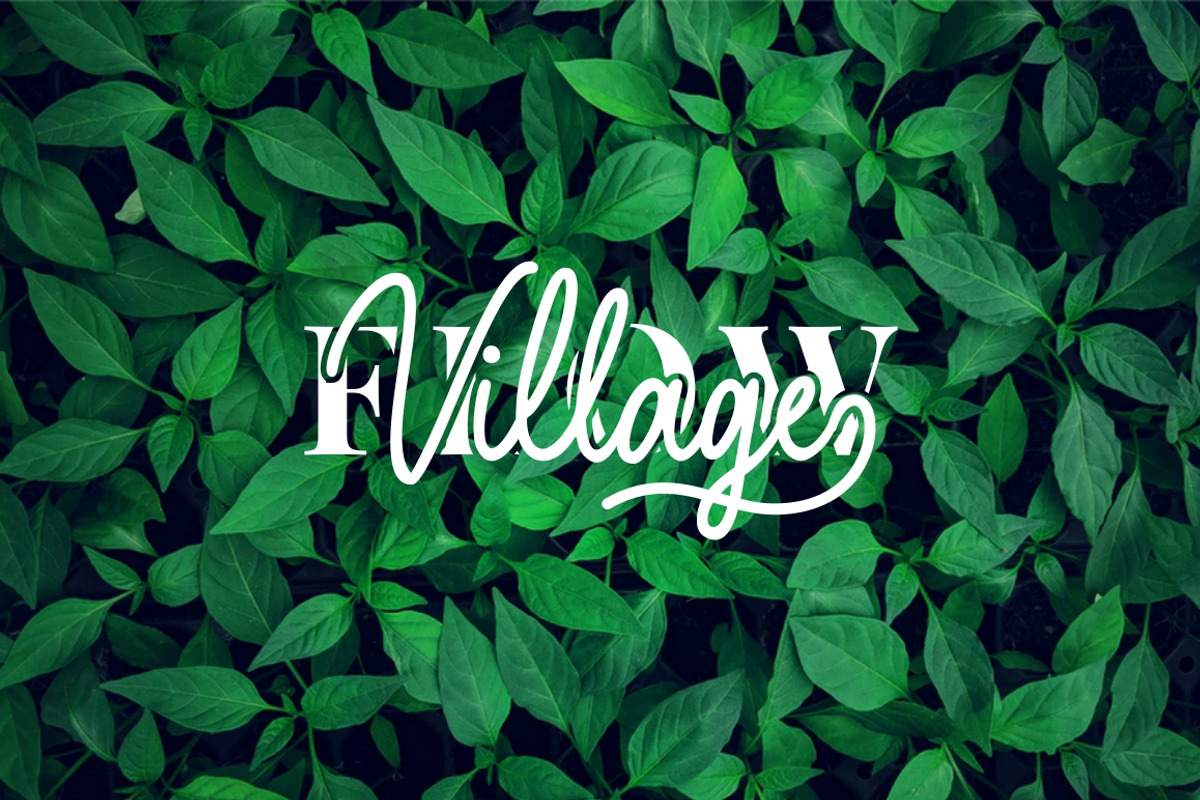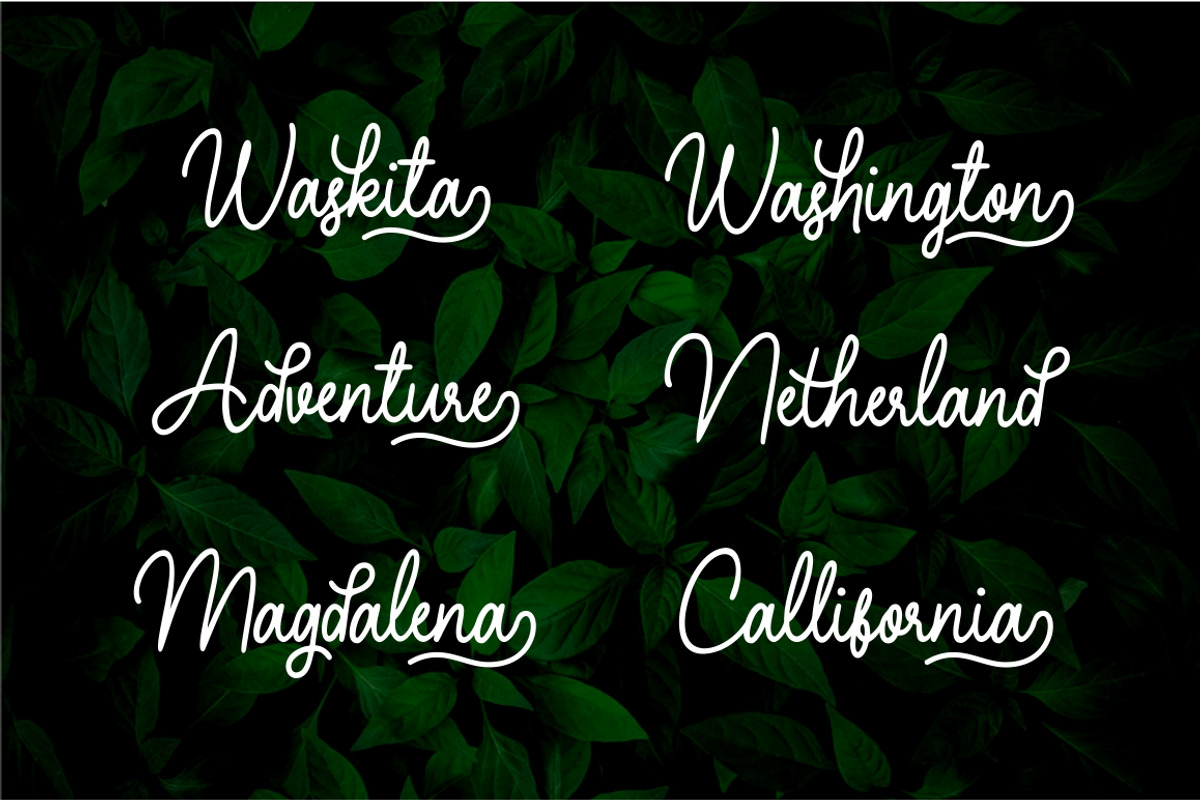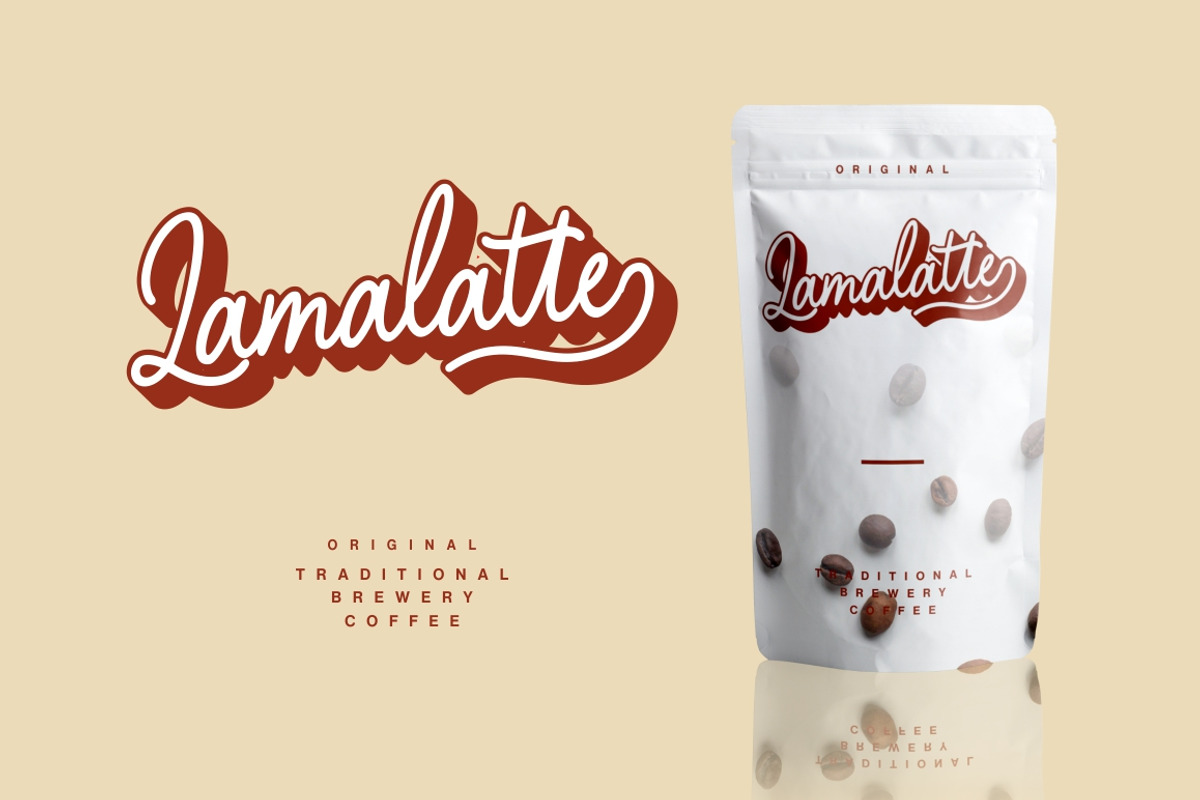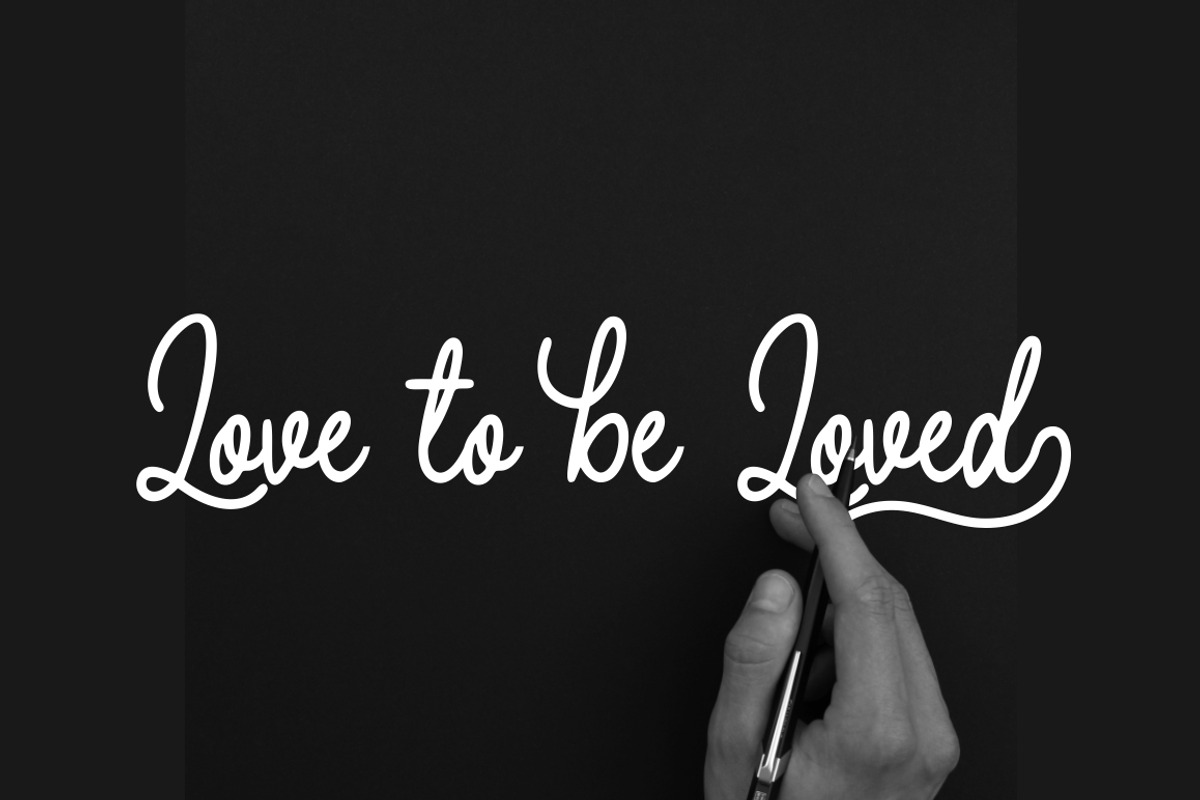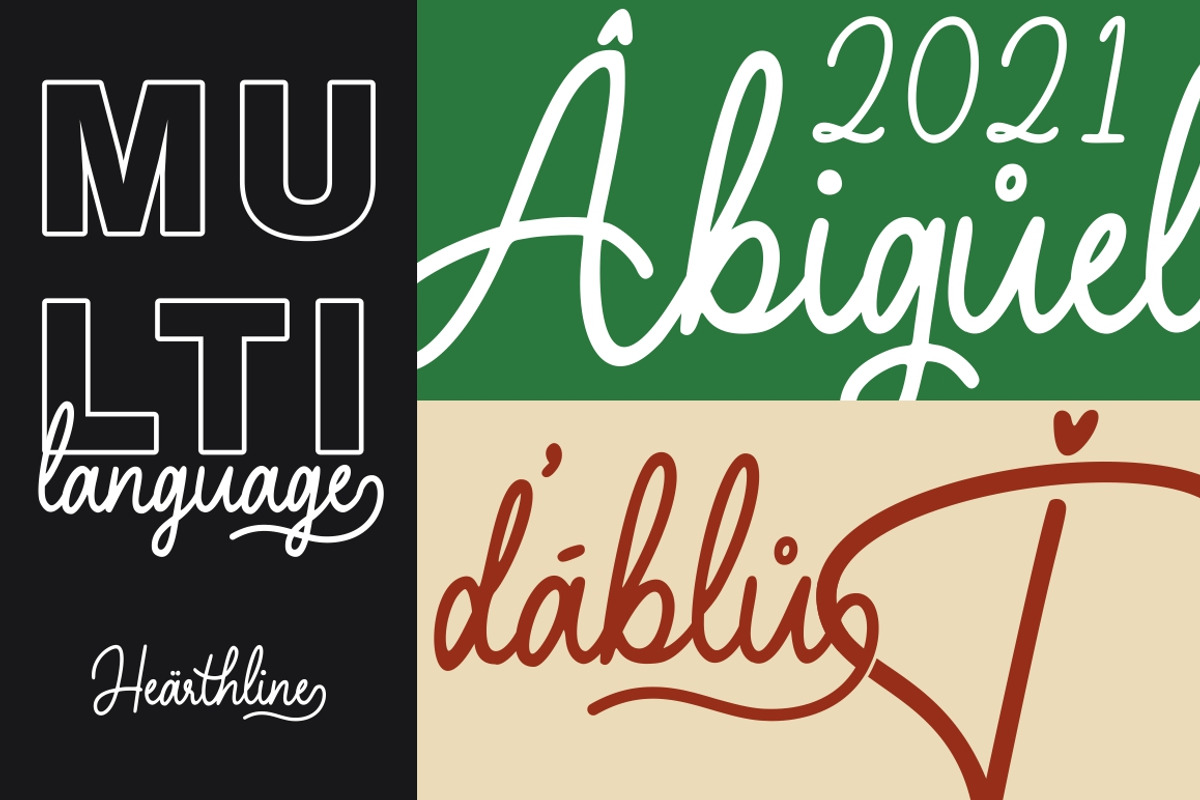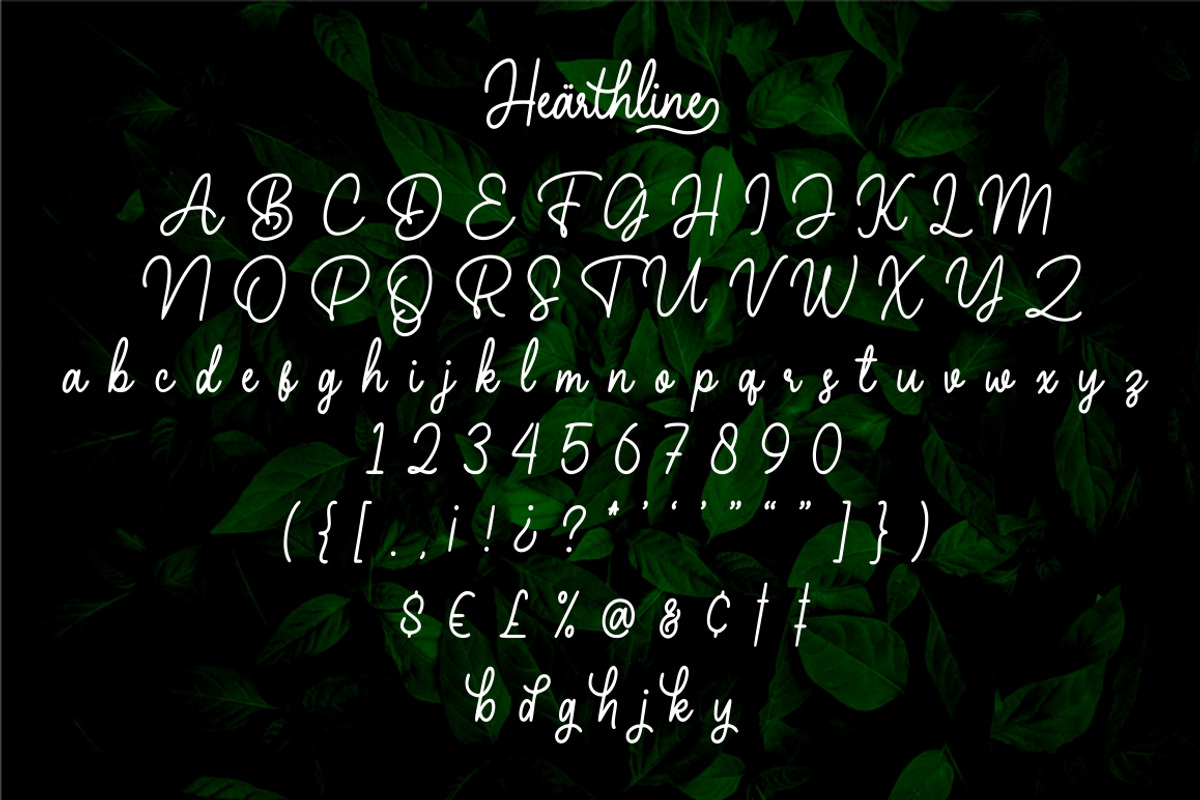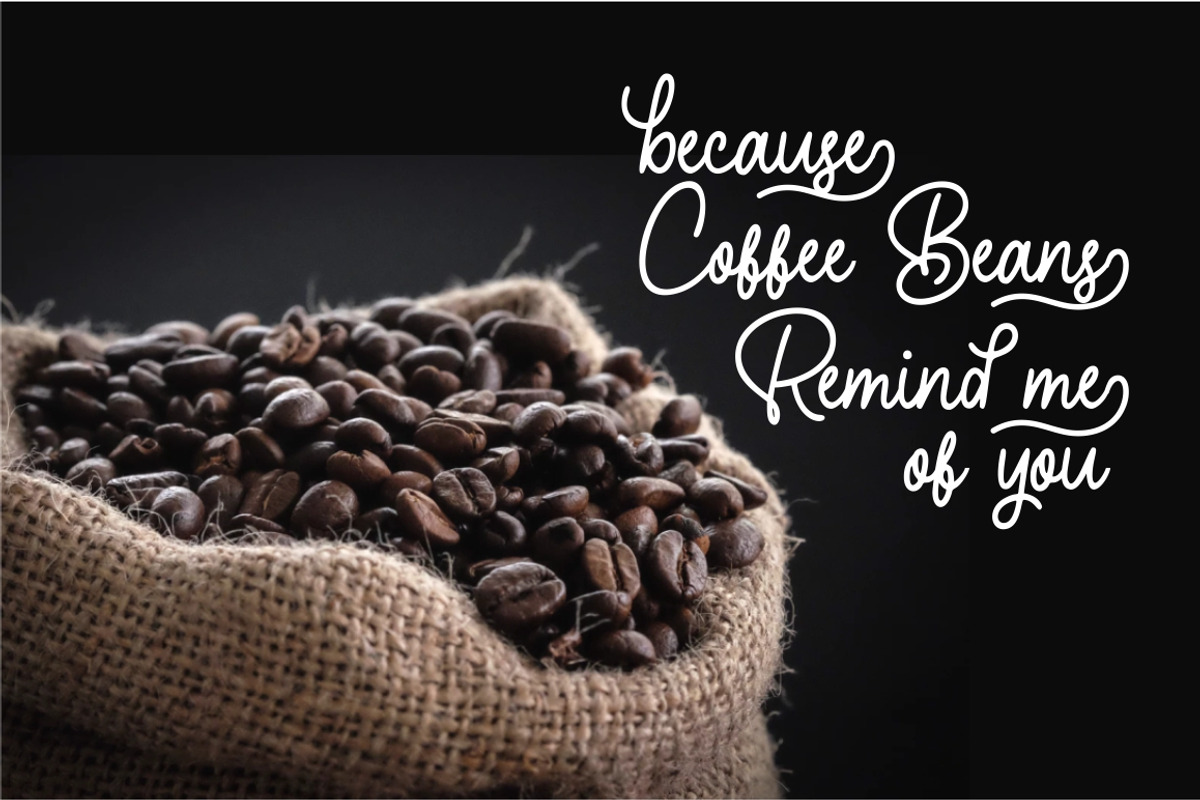
Hearthline - Monoscript Font
Introducing Hearthline - Monoscript Font
Hearthline born from handwritting style fonts. Versatile for design poster, logo, branding, label, quote, headline profil, banner, t-shirt design, packaging, magazine, brochure, and many more your amazing work with this fonts.